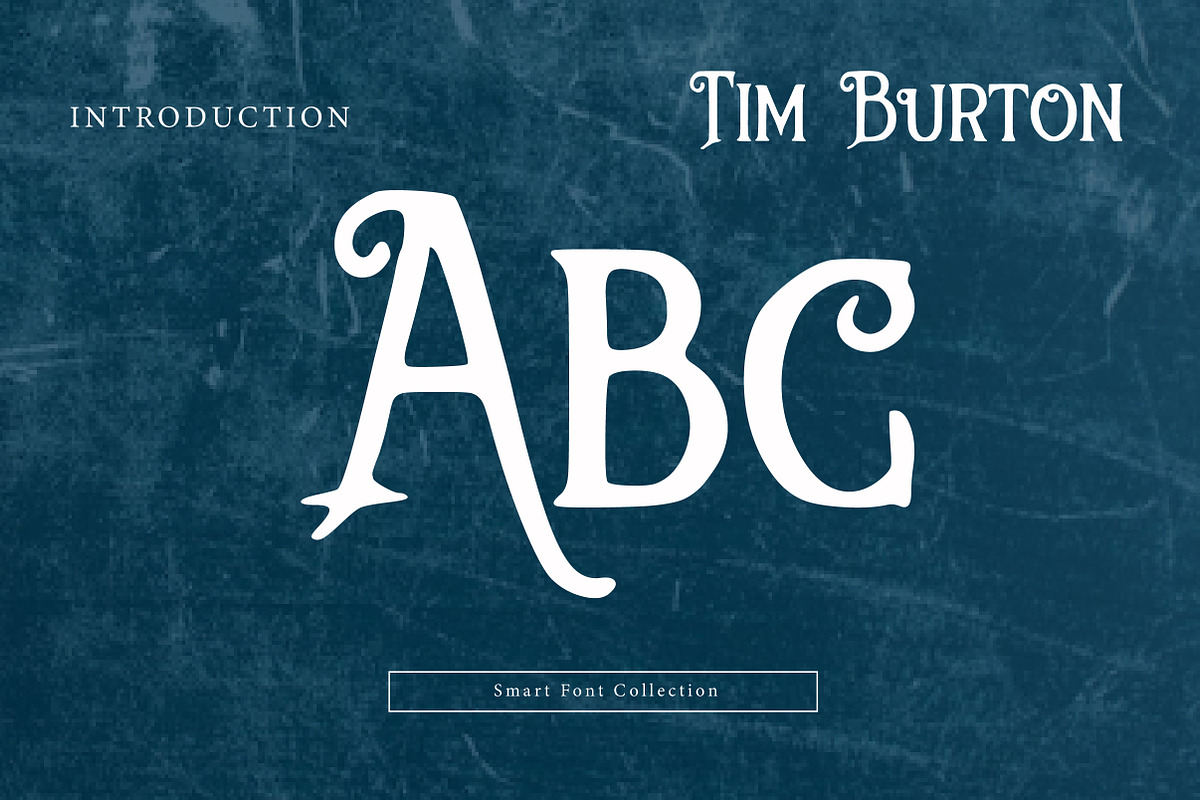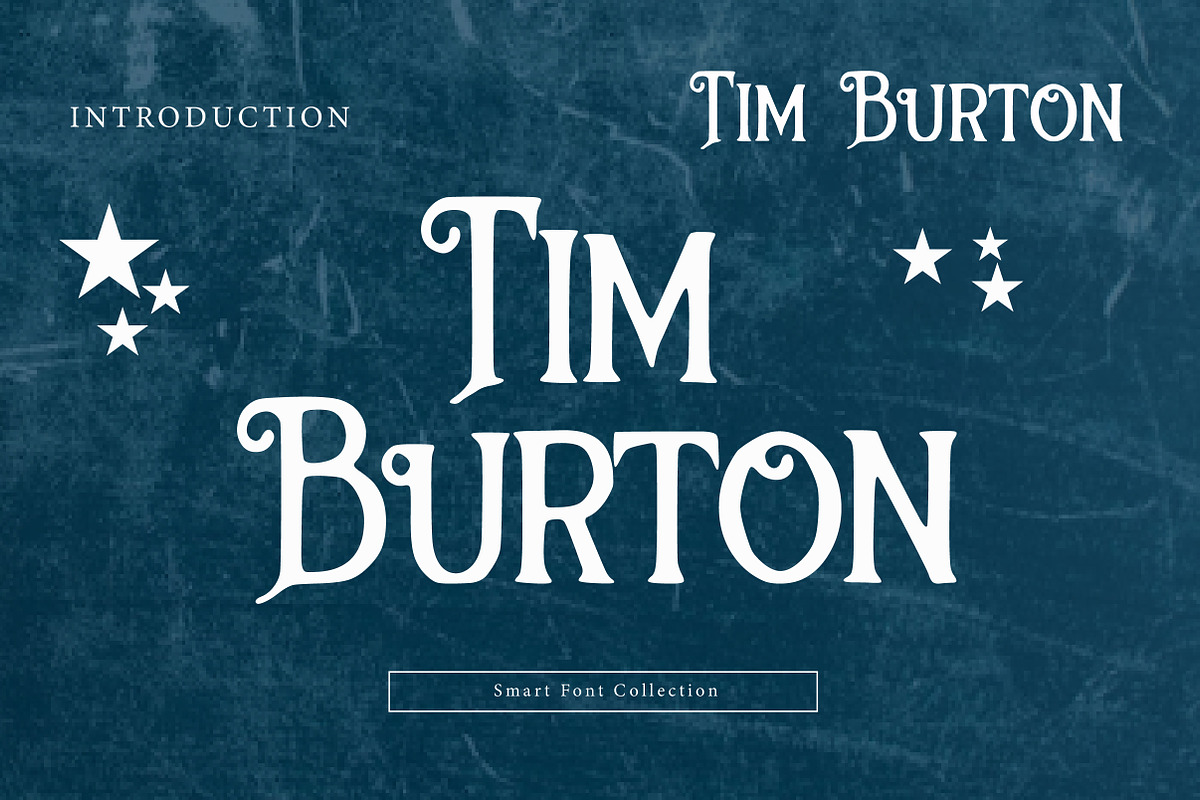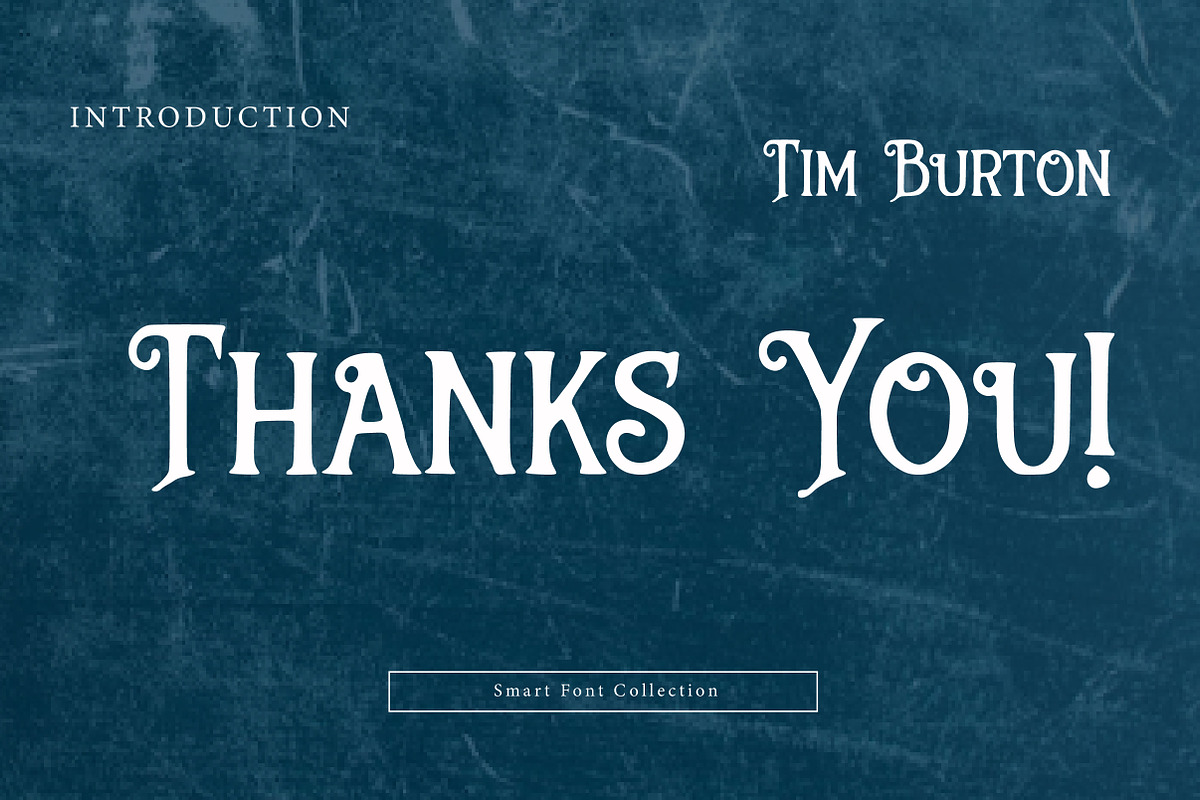
Tim Burton
Tim Burton is a whimsical, spooky display font inspired by quirky Gothic aesthetics and dark fairy-tale vibes. With its uneven strokes, playful curves, and slightly eerie character, this typeface is perfect for Halloween designs, fantasy posters, book covers, spooky branding, kids horror themes, invitations, and imaginative projects. Tim Burton delivers a charming mix of creepy and cute—ideal for designs that want a magical, offbeat, and storybook atmosphere.